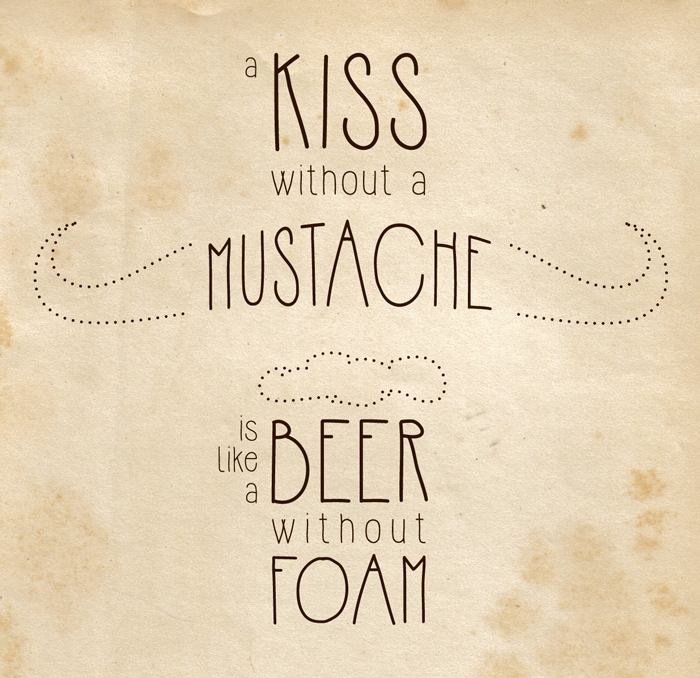
Preview and download Hipsterish Font. Created by Hello I'm Flo in Script Handwritten styles with Free for personal use license.
Here is a fun hispterish font. It contains most of the accents and special characters used in french and spanish. This font is free for a personal use only. Please contact me if you want to use it commercially. I created a Pro version of this font available here : http://tinyurl.com/HipsterishPro I hope you enjoy it! And if you like it, don't hesitate to congratulate my work by making a donation via the link under the download button! Thanks ! --- Voici une police dans le genre Hipster. Elle contient la plupart des accents et caractères spéciaux utilisés en français et en espagnol. Cette typo est disponible ici pour un usage personnel uniquement. Si vous comptez l'utiliser de manière commerciale, veuillez me contacter. J'ai créé une version Pro de cette typo disponible ici : http://tinyurl.com/HipsterishPro J'espère qu'elle vous plaira ! Et si c'est le cas, n'hésitez pas à féliciter mon travail en faisant un don via le lien situé sous le bouton de téléchargement ! Merci ! |